Skin deep – typography and tattoos
Tattoos once served as emblems of defiance, danger and rebellion: images that had mothers weeping and careers advisers holding their heads in despair. Today, however, these countercultural connotations have abated as tattooing has worked its way into the mainstream. Many people you know probably have one (visible or otherwise), and the tattoo taboo has softened. According to a piece in The Atlantic, nearly one in five people in the US now sport a tattoo, rising to nearly 40% of marketing’s favourite demographic, those pesky “millennials.”
With the rise in inkings and their wider acceptance, we’re seeing far more than traditional roses, swallows, anchors or well-intentioned inscriptions of lovers’ names. And while a picture is said to speak a thousand words, sometimes words are exactly what people want on their skin, and so typography and tattooing are disciplines more interlinked than ever.
The most common route into tattooing is through apprenticeships, taking anywhere from one to three years, which involve learning the trade on the job as well as studying aspects such as contamination and the more physical risks that could come with badly created work. While many tattooists come from an art background, most learn the nuances of letterforms on apprenticeships or on the job. And of course, considerations around kerning, sizing and other typographic technicalities are very different creating designs for skin compared to for print or digital applications.
Lord Montana Blue (yes, that’s his real name, not an aristocracy thing) has been working as a tattooist in London’s King’s Cross for the past ten years, having studied a degree that combined fine art and graphic design and working as a freelance graphic designer on graduating. “I was getting tattooed a fair bit while I was working as a designer and then thought it was a gamble worth taking to learn how to do it,” he says.
It seems his grounding in graphics and lettering fostered an initial understanding of type forms that was honed as he worked more and more on skin and stepped away from graphics client work.
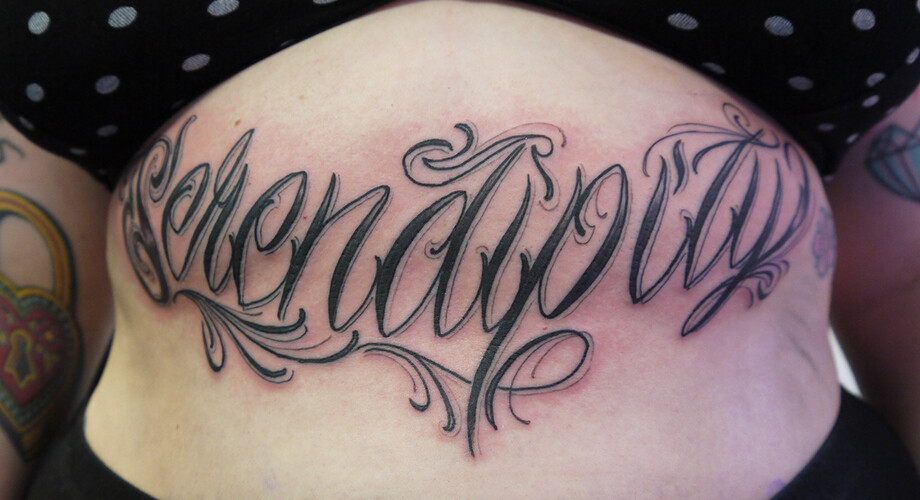
Sow and you shall reap: The intricate ornimented script lettering of Lord Montana Blue (above and below).
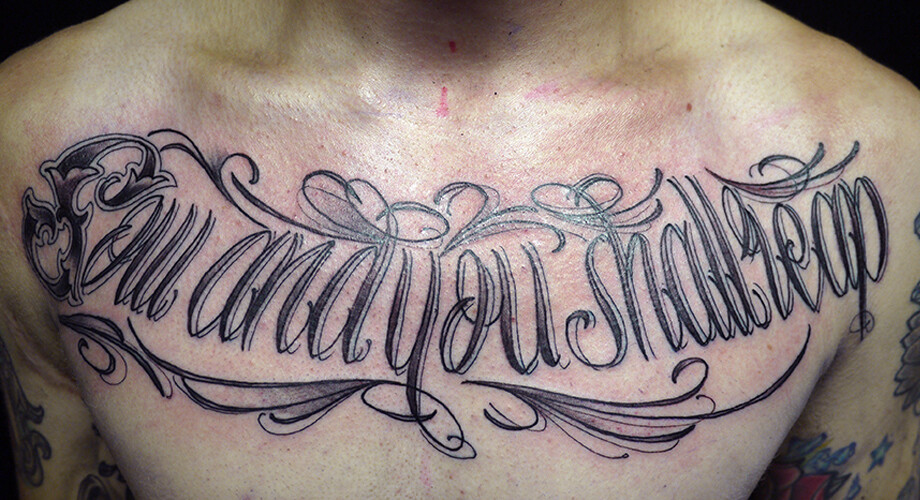
Fellow London-based artist Mishka also got into tattooing having studied art, moving away from a conceptual installation-based studio practise that she says was “haemorrhaging money” to work for a friend who became a mentor and trainer, Kali. Mishka’s lettering work is strikingly bold and geometric, rendered in a style that draws on her Belarusian heritage. “In general the only font I’m interested in is Vyaz, so it’s very geometric using long vertical lines,” she says.
“I’m interested in that style as it’s not only script, but also an image, so it’s not always obvious what’s written. It’s based on an old Slavic church font, so you’re trying to slot letters into one another a bit like a logical puzzle. It’s constricted but beautiful and repetitive – a mix of being creative and rule-driven.”
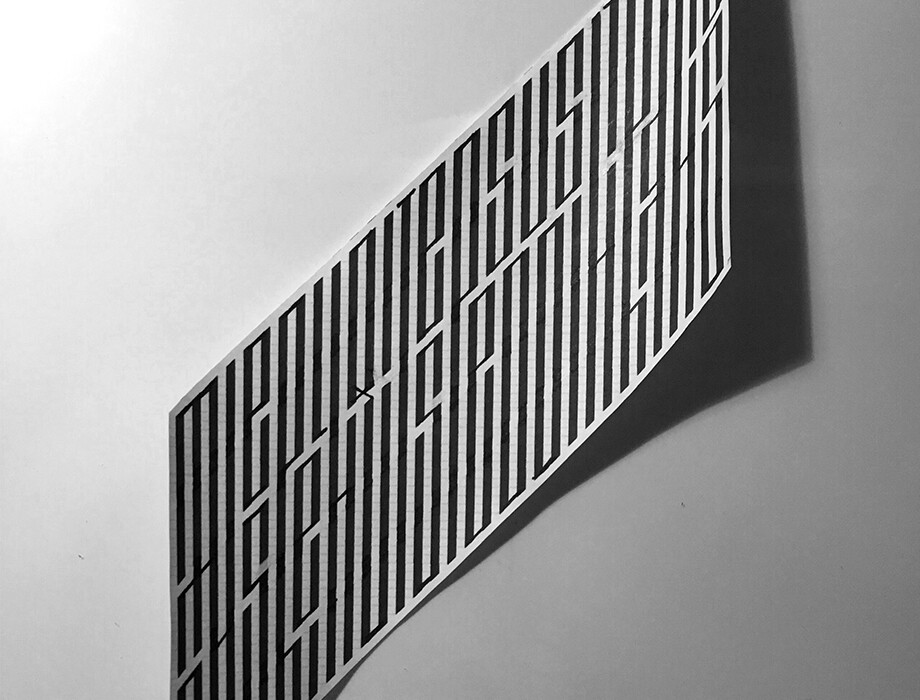
The letterforms Mishka draws from were traditionally used for icons and religious manuscripts in Cyrillic, but in her tattooing she draws her own versions on graph paper by hand either in English or Russian alphabets. “Once you understand the rules you can make them more gothic or Constructivist,” she says. “Personally I like a bold, graphic approach, and I try to do things that are a bit unusual or that not everyone else is doing.”
Ultimately, it’s the role of the artist to guide people into collaboratively coming up with the best solution for the word they want, where they want it, how they want it drawn and ensuring it’s stylistically something suited to their design and personality.
“Not every size of letter and not every font works on skin. Some people come in and say ‘I want this word and this font and I want it here’ then we guide them through things like letter sizes,” Blue explains. “I’ve got books and books of different letterforms with different styles so sometimes we try to open their mind a bit if we’re not sure their idea would work, or offer to make them a hand-drawn version. Other people will come in and say they want something that looks cursive, or like Old English, or a little bit ‘gangster’ or ‘horror’, then I’d go away and work on that the same as I would with anything else.”
For Mishka, her process involves sending customers a number of different examples of the word they want drawn in her style, “ranging from the more feminine to the more gothic, or minimalist, or bold.” They then choose from up to 20 versions and she designs a custom font for them. “Some words constrict better and more elegantly than others,” she says. “It’s also very important to determine where they want it on the body, as that determines the shape of the letters. You have to be so careful with curvier body parts as the image can distort so much.”
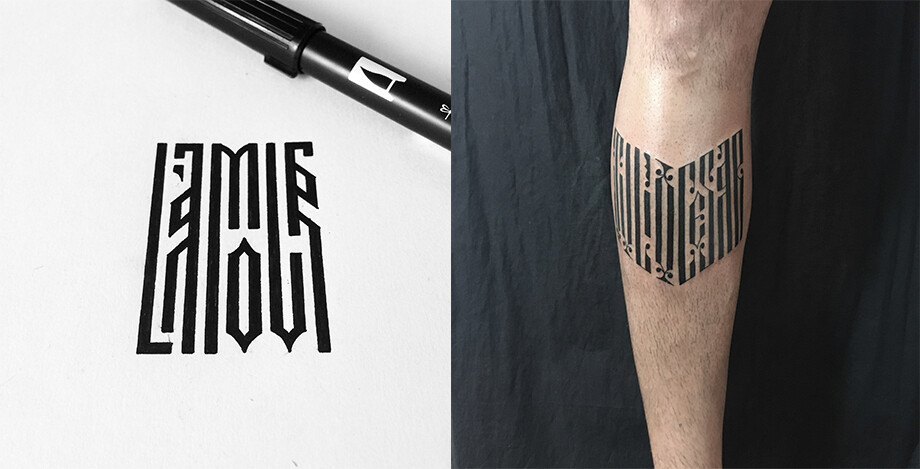
Above: The highly condensed and geometric work of London-based artist Mishka draws on her Belarusian heritage.
As Stewart O’Callaghan, a tattooist currently based in Brighton who learned the trade having been studying for a PhD in psychology points out, most people that come in aren’t aware of things like serifs, and “neither should they have to be.” He considers that having an artistic background could in fact be a hindrance to becoming a tattooist, “as not every art style aligns itself with tattooing.” He explains: “You have to think about line weights, composition and things, so it’s more like illustration. There’s been a growth in stark, illustrative tattooing styles as maybe more people are coming out of illustration degrees and want to apply what they’ve learned to tattoos.”
When working out lettering designs with customers, O’Callaghan finds that many people simply know what they want written and where. “People often find it hard to visually map script, and so it’s your job to be able to draw that from them and guide their hand in the room.” He says that a lot of people want internet-ready type, and so uses the online resource DaFont, an archive of freely downloadable fonts. “But a lot of them aren’t tattooable,” O’Callaghan concedes, “so you have to think about where that design meets the body. I’ll often steer people towards something hand-drawn as I know that suits the sort of work I do.
“One of the biggest problems in lettering on the body is size, because when we do a tattoo the lines can blur a little and even a millimetre is the difference between a ‘c’ or ‘e’. Sometimes with a font we’ll have to make the negative space bigger to make it clearer and be honest about people’s expectations for having a word in a difficult place, like behind their ear. Generally it’s best to push for lettering five or ten per cent larger, as you want it to read well years down the line.”
Mishka also stresses how different skin’s interaction with ink is compared to paper: “Things like the detail and scale are very different,” she says. “The contrast between black and white on paper is one thing, but on skin black becomes blue over time and the skin almost acts like stained glass as the ink ages – it grows, so the lines will get fuzzier and if the negative space in lettering is too small it eventually becomes illegible.”
Blue most often works by drawing an image and creating a stencil, though other artists work freehand onto the body, working in a similar way to how a traditional sign painter might (albeit onto very different surfaces). But as Mishka points out, however you create an image, the most important consideration is its translation onto the body itself, and the individual person. “Anything you do with a tattoo has to accentuate the way the body flows,” she says. “You have to think about the person and the impression you get about their personality. You get a feel for a person, and I try to make something that harmonises with their personality and their aesthetics, or how they carry themselves.”
The advent of social media and image-based online resources like Instagram and Pinterest has not only popularised tattooing and opened up new avenues for inspiration, but it’s provided an easily curated and beautiful shop window of sorts for tattoo artists. The flipside is that it’s also meant a rise in trend-led tattooing work; and even more frustratingly for artists and customers, created a set of unrealistic images that simply aren’t possible. Many are Photoshopped, or cannily shot just as the ink is fresh. As such, there’s little indication of how such designs look in real life, let alone after a few years of being on skin that naturally morphs and changes with the body and in the elements.
Trend-wise, Blue says that “at the moment there seems to be a fashion for a very loose handwritten scrawl that looks like a heartbeat line, but it’s so stretched that there’s no negative space in the ‘o’ or ‘e’ even on paper. Whatever you do the line will always stretch and look different to how it looks on paper just because that’s the line you get with tattooing. You have to think about what it’ll look like in three or four summer’s time, and once it’s been stretched across skin. Bigger letterforms will always work best.”
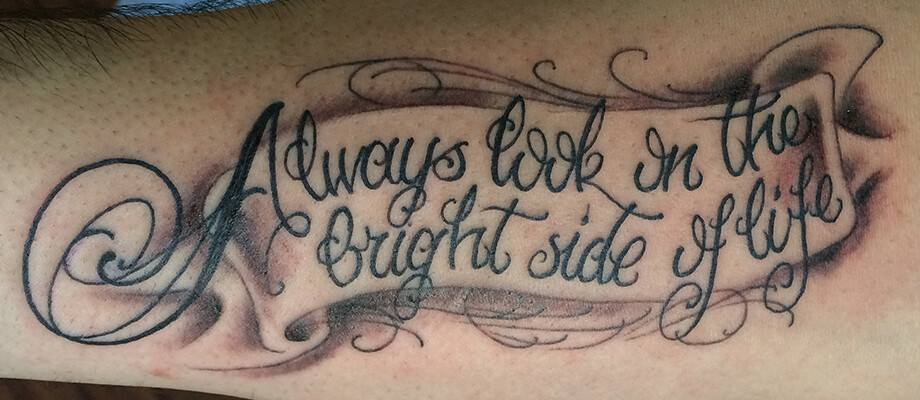
Above: A range of script and lettering styles by Stewart O’Callaghan
O’Callaghan adds that the styles that work least well as those “messy by design,” or that have a sense of rawness about them. “Things with a certain amount of crispness about the design work well, but you have to think about if you’re working with the flow of the body or against it,” he says. “It helps to pick soft scripts or big lines, something like a Chicano reference [Mexican-originated lettering] – that’s interesting because it mixes very heavy, bold letters with very thin cursive fonts. It’s that contrast that makes a very beautiful tattoo.”
“People are often scared that they don’t have the vocabulary to take the creative lead,” says O’Callaghan. “Often they’ll bring in pictures but you don’t want to just recreate another person’s tattoo as it’s against the moral code of tattooing. People who are more concerned about size can give you the threshold of how large they would be willing for the tattoo to go, but you want people to feel part of the creative process and trust you.”
Blue finds social media and online imagery to be both a blessing and a curse. “It’s a struggle,” he says. “People come in with their heart set on something and we’ll give all the advice we can but you have to draw a line in the sand. I don’t want to blame Pinterest and social media but it can give the wrong idea, or an image will have been taken out of context having been reposted and reposted. With tattooing you have to consider the shape of the body, and how something might work differently on male or female bodies. Sometimes you say something can’t be done, and people will then just go to a less reputable artist to get it done there.”
With any sort of tricky negotiation, Mishka says that it’s vital the artist is patient and empathic, and will even show clients an image of a celebrity with their fresh tattoo, and another of the same tattoo six months later to try and demonstrate how mutable things can be. “The trick is to be patient; try and see where they’re coming from,” she says.
The other issue with social media feeds, as O’Callaghan says, is that they act as an “aggregate of popularity and the number of people hitting the ‘like’ button. But that’s not the same as a well executed idea or level of taste. Things can rise to the top that mean great work goes unnoticed.”
Blue and O’Callaghan agree that cursive fonts – particularly Diana – are the most popular requests, and a common challenge is to simplify or enlarge the design to ensure legibility. The same applies to customers who want lettering created in the style of their own handwriting. The key is to maintain an awareness of “what sits well on the body,” says Mishka. “The body isn’t flat pages: a big block of text might mean a lot to somebody, but it doesn’t mean it’ll look good visually. If the script functions like a well-tailored item of clothing, it’ll look good on the body.”
Blue cites an instance of writing the entire Lord’s Prayer across a customer’s arms, using letterforms at just 5mm high. For him, the most fun letter-based tattoos to draw are “around five or six letters long, a big script where I’m given the freedom to run wild.” They also agree that the very true cliché in tattooing is that the smaller the tattoo, the more the customer is likely to fret about style, sizing and placement.
The style and shape of letterforms are one thing, but what about the content? Are there any words, or phrases the artists wouldn’t ink on moral grounds? “Something I always think about is the fact that at some point you’ll be sick and in hospital and can’t speak for yourself, so your body will speak for you,” says Blue. “I’d rather not put something on someone that will have them judged. So sometimes I’ll swerve things where I don’t want to be responsible for anything negative that happens to that person because they’re wearing a certain word.”
Mishka is even more emphatic about where she draws the line, literally and metaphorically. “I won’t do partners’ names,” she says. “I’ll do dogs’ names, kids’ names, gods’ name even, but I won’t do partners names. It’s like a jinx.”